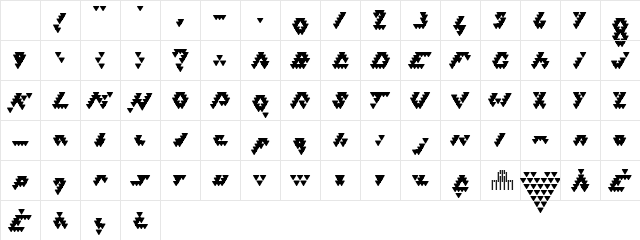
Complete Bizar Loved Triangles Regular glyph index. Displaying only characters natively supported by Bizar Loved Triangles Regular font.
Bizar Loved Triangles is a composed and adaptable typeface that performs quietly and consistently across a wide range of design contexts.